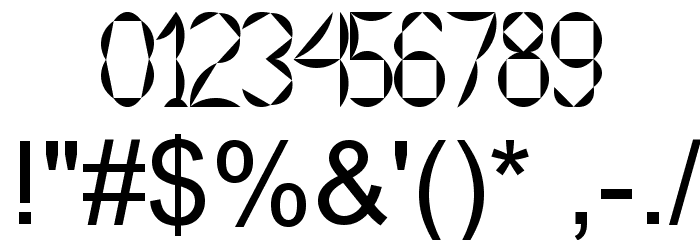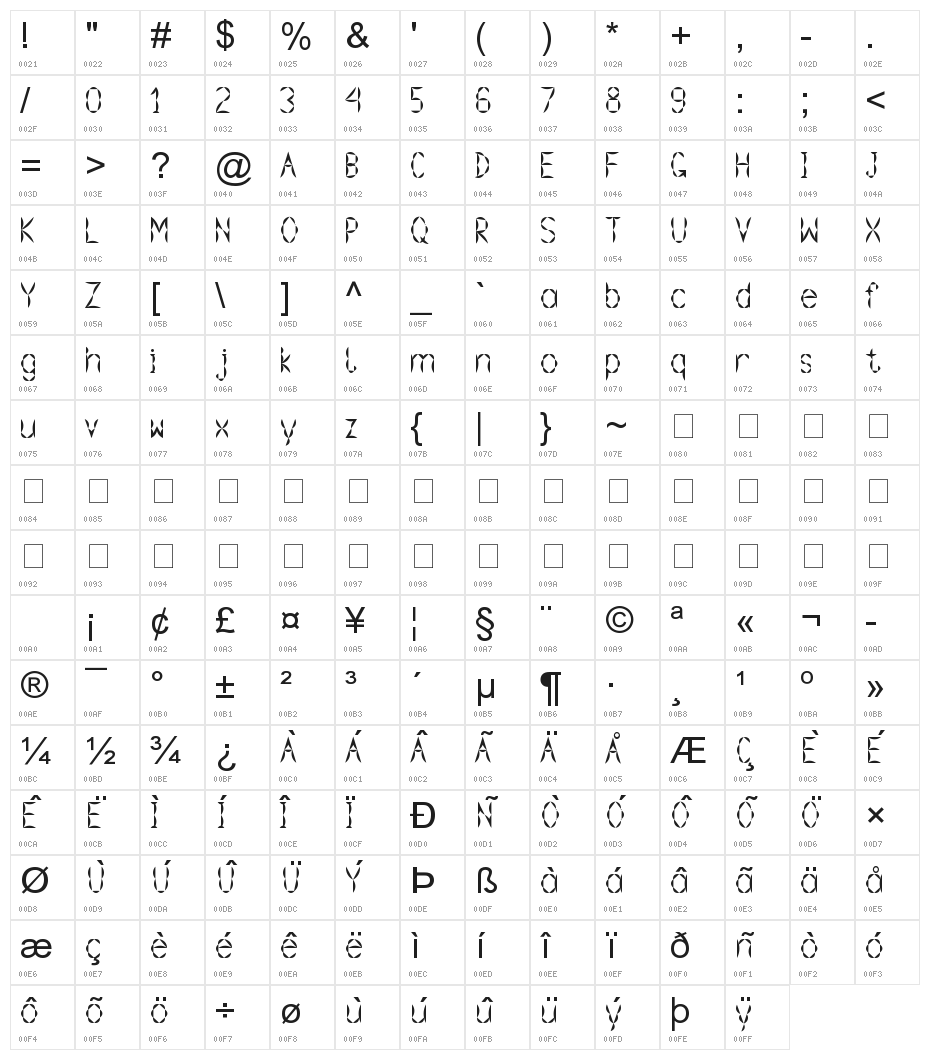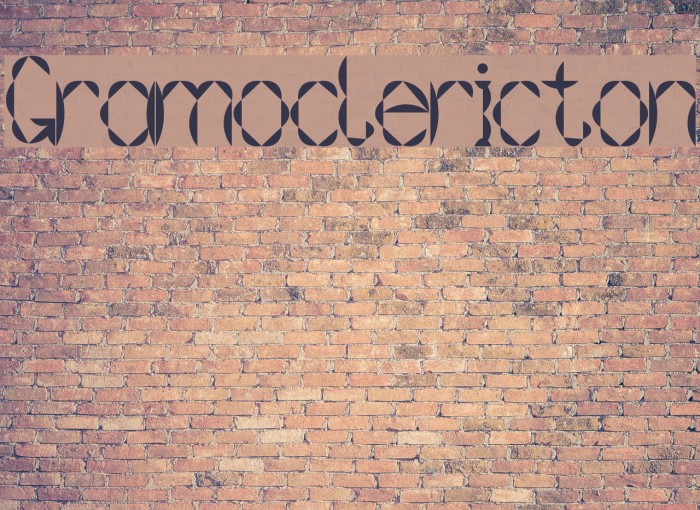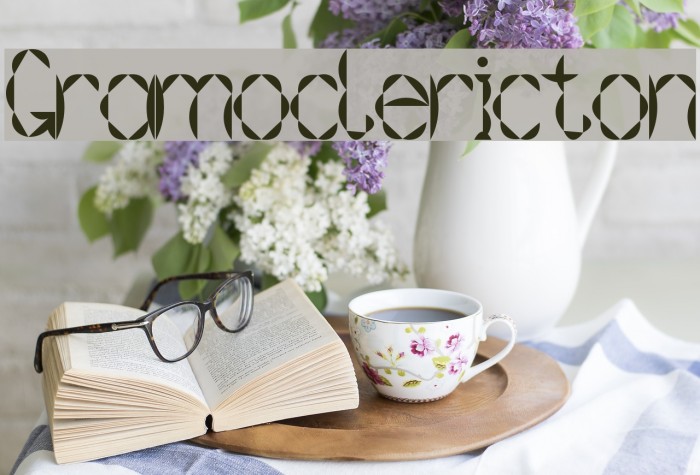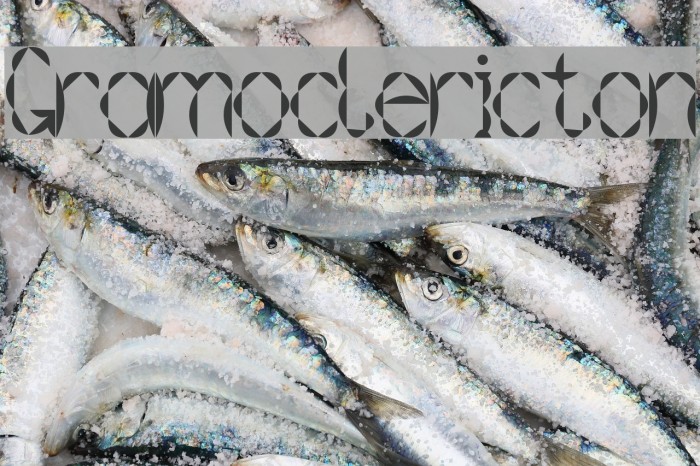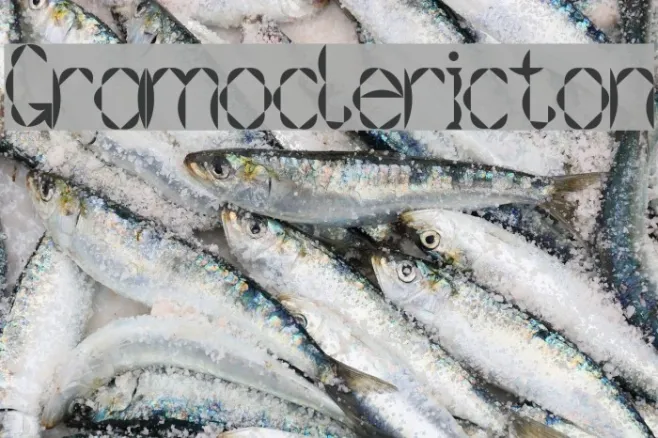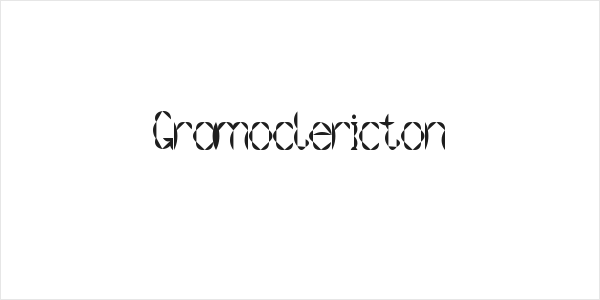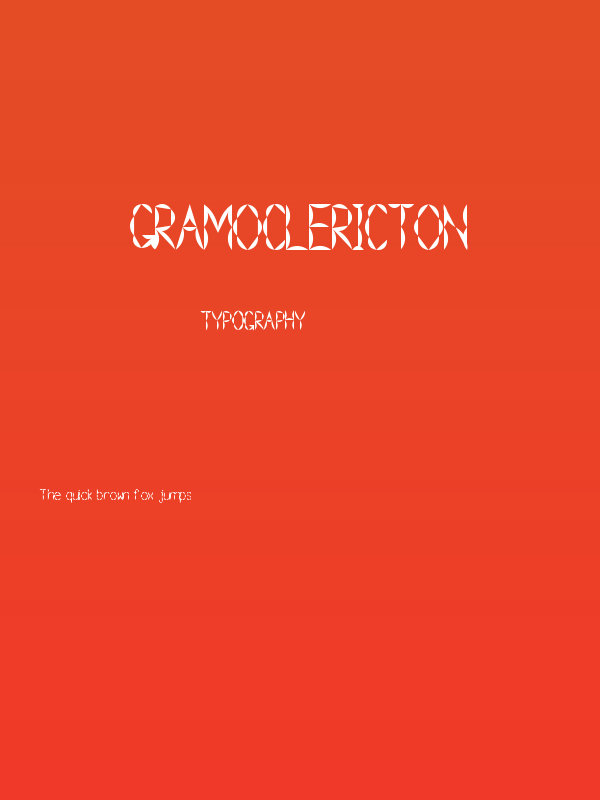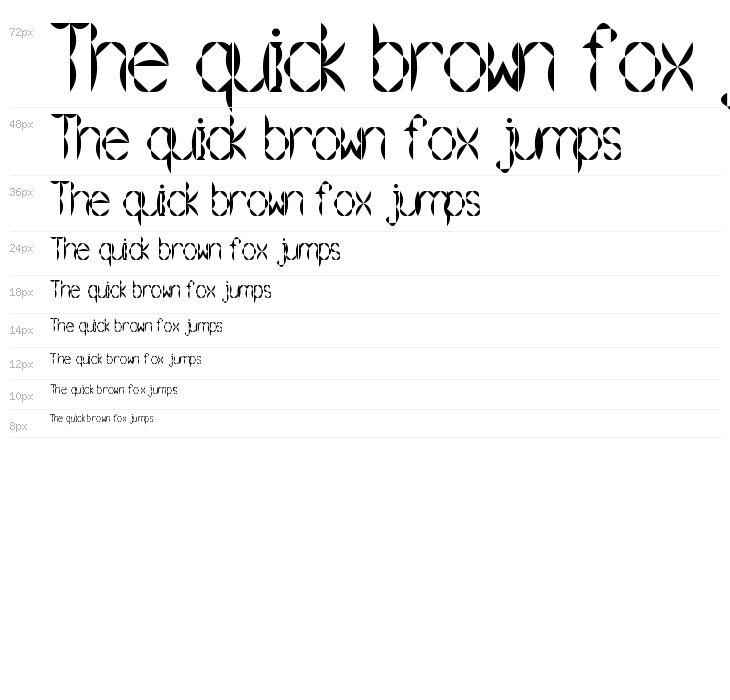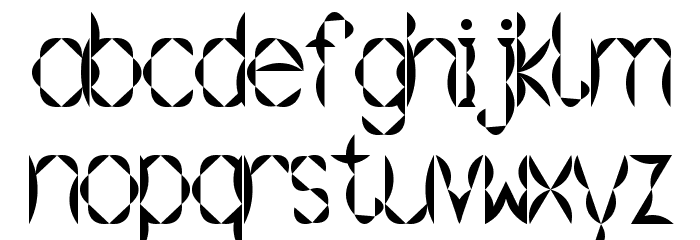
Gramoclericton Font
Gramoclericton Description
This font features a unique and artistic design with a modern twist. The characters are composed of bold, angular shapes that create a sense of movement and energy. Each letter is crafted with a combination of sharp edges and smooth curves, giving it a dynamic and futuristic appearance. The uppercase and lowercase letters maintain a consistent style, while the numbers and special characters complement the overall aesthetic. This font is perfect for projects that require a bold and eye-catching display, making it ideal for branding, posters, and creative designs.